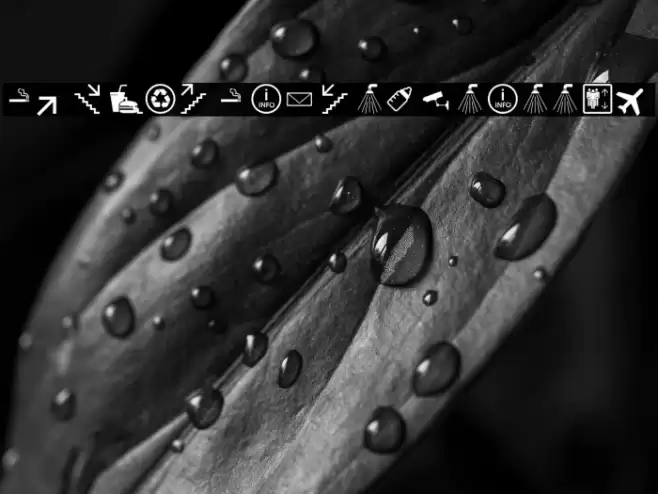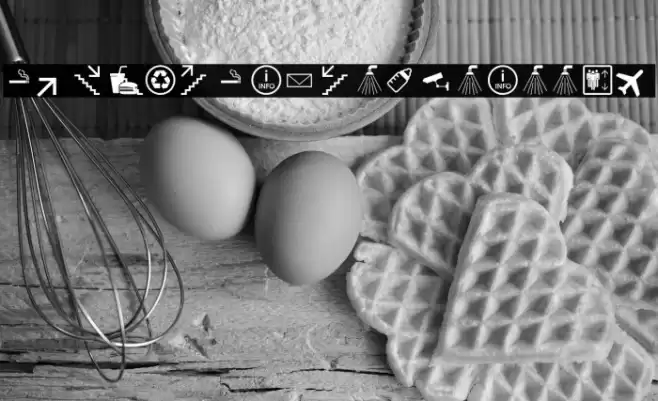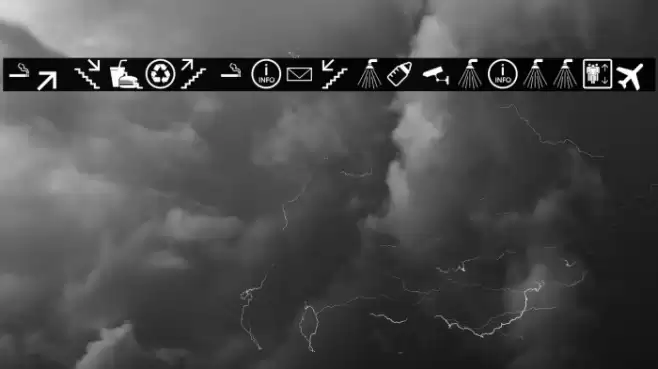
SymbolSigns-Basisset Font
SymbolSigns-Basisset Description
This set of symbols is designed for clear and effective communication in public spaces. Each icon is crafted with simplicity and universal understanding in mind, ensuring that they can be easily recognized and interpreted by people from diverse backgrounds. The symbols cover a wide range of common public signs, including no smoking, exit, restroom, information, and directional arrows. The design is clean and minimalistic, with bold lines and high contrast to enhance visibility. These symbols are ideal for use in environments such as airports, train stations, shopping malls, and other areas where clear signage is crucial.
A comprehensive set of universally recognizable public signage symbols from Dingbats fonts.
- Proposed Projects: Ideal for public signage in airports, train stations, shopping centers, and other high-traffic areas requiring clear communication.
- Use Case: Signage, Wayfinding